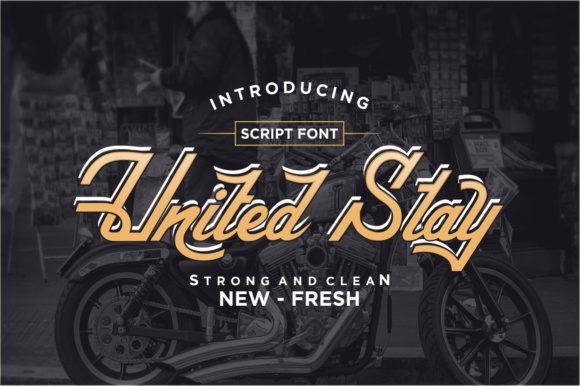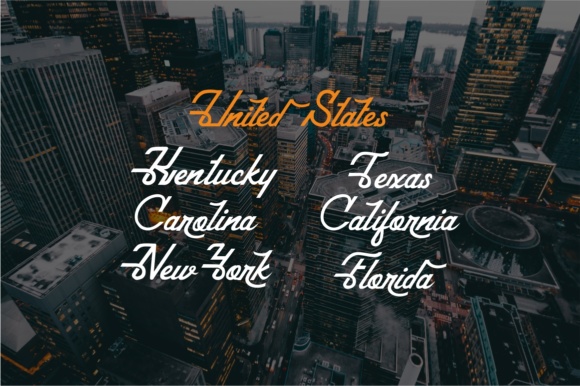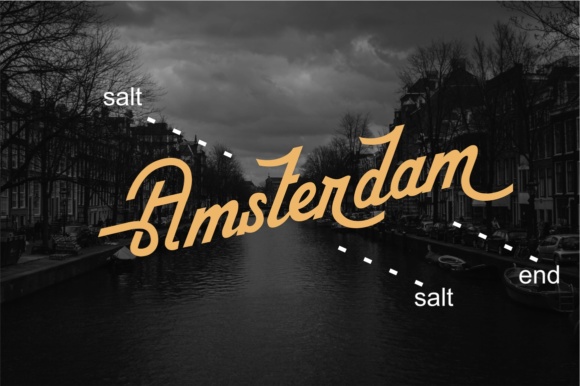
About United Stay Font
United Stay is a strong and clean script font. With it’s vintage style, United Stay is perfect for product logos, magazine content, automotive clubs, logos for bars and cafes, clothing brand logos, vintage designs and much more.